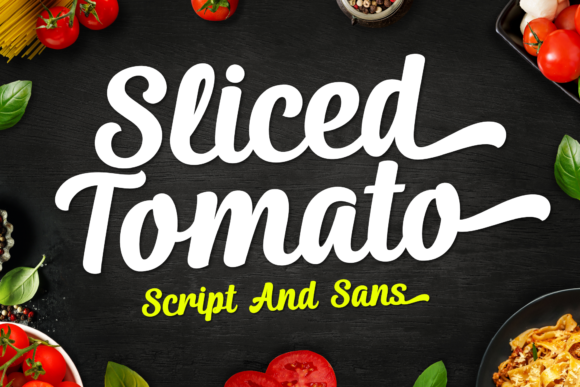
Sliced Tomato Font: A Bold and Beautiful Script Font
The Sliced Tomato Font is a stunning script font that has been making waves in the design world. This bold duo script font features a cool flow that is sure to grab attention. In this article, we’ll take a closer look at the Sliced Tomato Font, its features, and why it’s a must-have for designers and typography enthusiasts.
What is Sliced Tomato Font?
Sliced Tomato Font is a modern script font that boasts a unique and stylish design. This font is perfect for those who want to add a touch of elegance and sophistication to their designs. The font features a bold and flowing script style, with intricate details that make it stand out from other fonts.
Key Features of Sliced Tomato Font
So, what makes Sliced Tomato Font so special? Here are some of its key features:
- Bold Duo Script Font: Sliced Tomato Font is a bold duo script font that features a cool flow. This means that it has a unique and stylish design that is sure to grab attention.
- Glyphs and Swashes: Sliced Tomato Font features a wide range of glyphs and swashes that you can use to add a personal touch to your designs. These glyphs and swashes can be used to create beautiful and intricate designs.
Why Choose Sliced Tomato Font?
So, why should you choose Sliced Tomato Font for your design projects? Here are some reasons:
- Unique Design: Sliced Tomato Font has a unique and stylish design that is sure to grab attention. Its bold and flowing script style makes it perfect for headlines, titles, and other design elements.
- Versatile: Sliced Tomato Font is a versatile font that can be used for a wide range of design projects. It can be used for logos, brochures, posters, and other marketing materials.
- Experiment with Glyphs and Swashes: One of the best things about Sliced Tomato Font is the wide range of glyphs and swashes that it features. Experiment with these to add a personal touch to your designs.
Tips and Tricks for Using Sliced Tomato Font
Here are some tips and tricks for using Sliced Tomato Font:
- Use it for Headlines: Sliced Tomato Font is perfect for headlines and titles. Its bold and flowing script style makes it easy to read and attention-grabbing.
- Experiment with Colors: This font looks great in a wide range of colors. Experiment with different colors to find the one that works best for your design.
- Pair it with Other Fonts: Sliced Tomato Font can be paired with other fonts to create a unique and stylish design. Experiment with different font combinations to find the one that works best for your design.
Sliced Tomato Font is a stunning script font that is sure to grab attention. Its bold and flowing script style, combined with its wide range of glyphs and swashes, make it a must-have for designers and typography enthusiasts. With its PUA encoding, it’s easy to access all of the glyphs and swashes, making it simple to add a personal touch to your designs.
- What is Sliced Tomato Font? Sliced Tomato Font is a bold duo script font that features a cool flow. It’s perfect for headlines, titles, and other design elements.